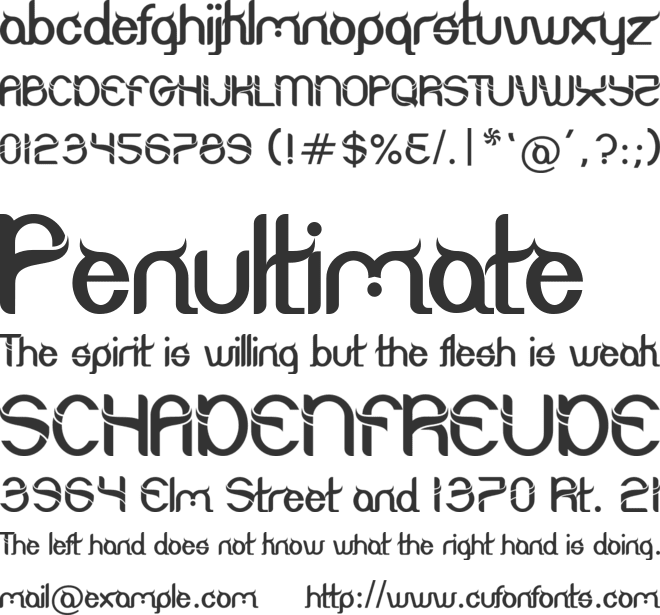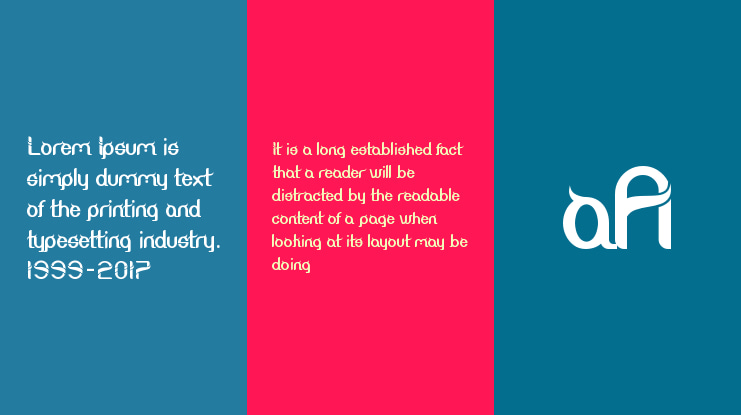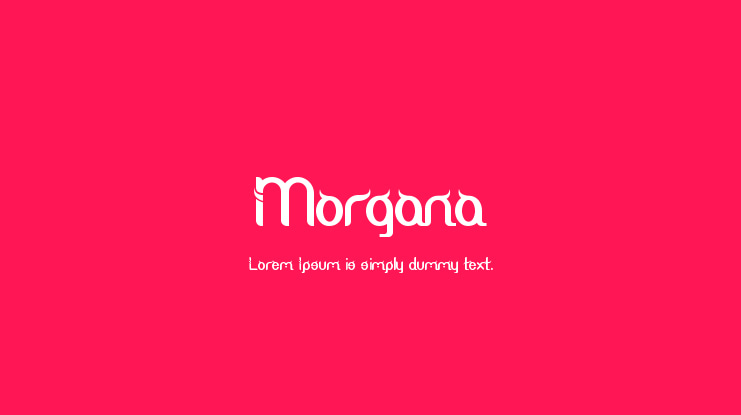
Morgana Font Family
emanes dsign
Thank you for download my product Morgana Regular. Morgana is inspired by mystery magazines and horror films. It will add a weird and kooky spark to any design project!